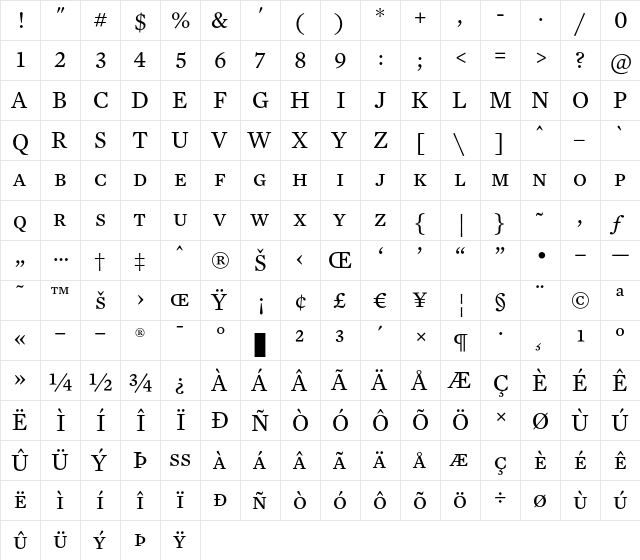
Mercury Text G2 Roman SC
Design Context for Mercury Text G2 Typeface
Mercury Text G2 is a composed and adaptable typeface that performs quietly and consistently across a wide range of design contexts.